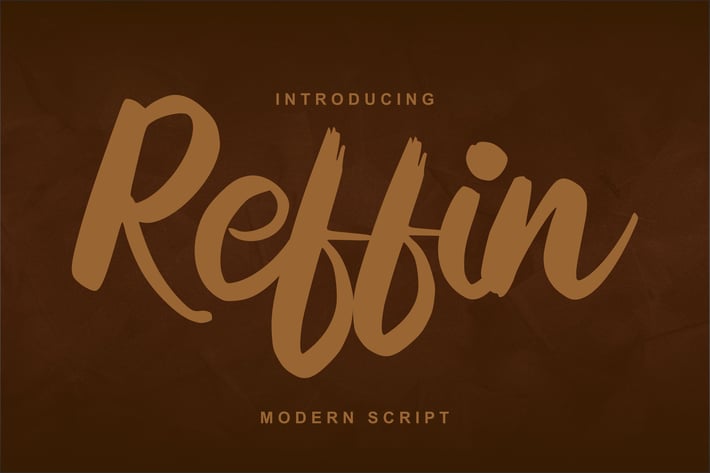
Reffin | Modern Script Font
Reffin | Modern Script Font with a calligraphy style, So beautiful on invitation like greeting cards, branding materials, business cards, quotes, posters, and more!